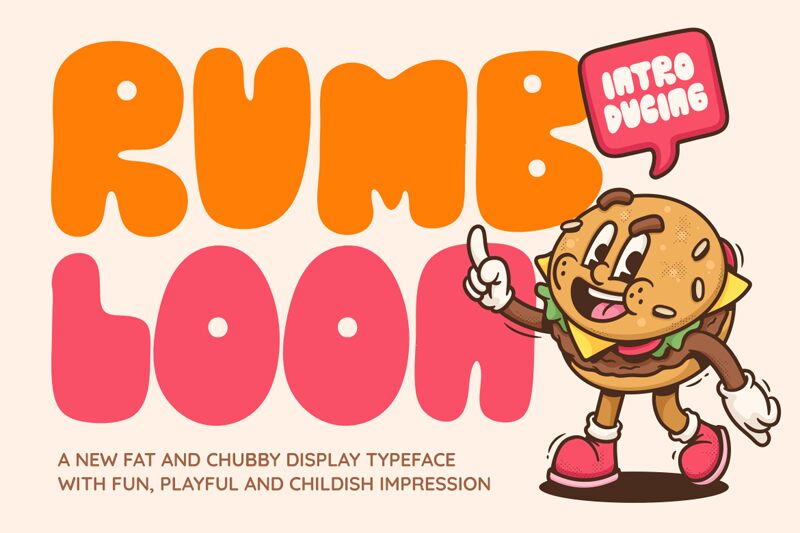
Rumbloon font family by PutraCetol Studio is a free groovy font family that is chubby, rounded, and whimsical in its appearance. The characters all share consistent shapes that make this font best suitable for text that attracts readers. A wide range of different unique characters and useful glyphs is available instantly within Rumbloon.
Apply this font to your school projects, book cover designs, holiday greeting cards, event posters, product labels, packaging design, branding, and stationery designs. Rumbloon font, which is also available as a web font, can be applied to your social media and blog project designs.